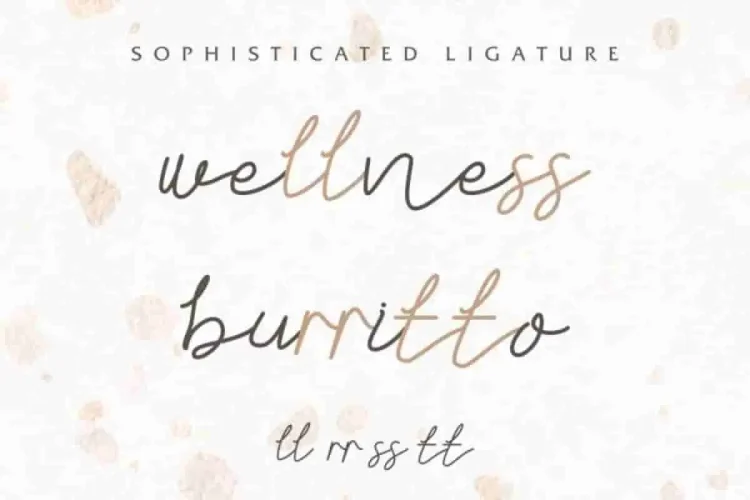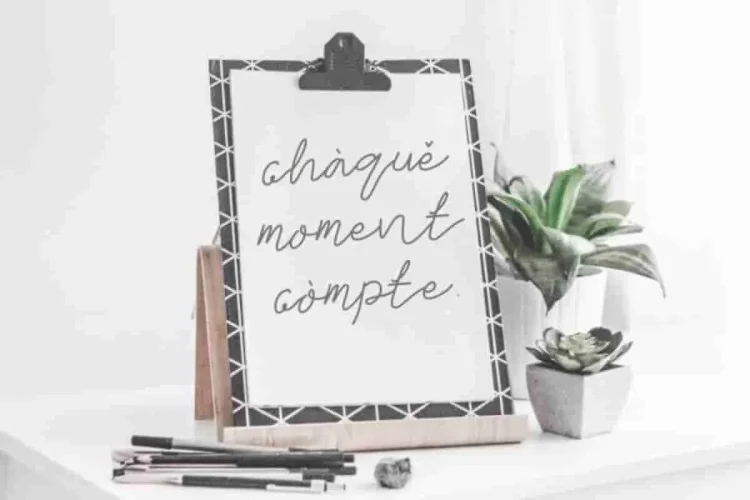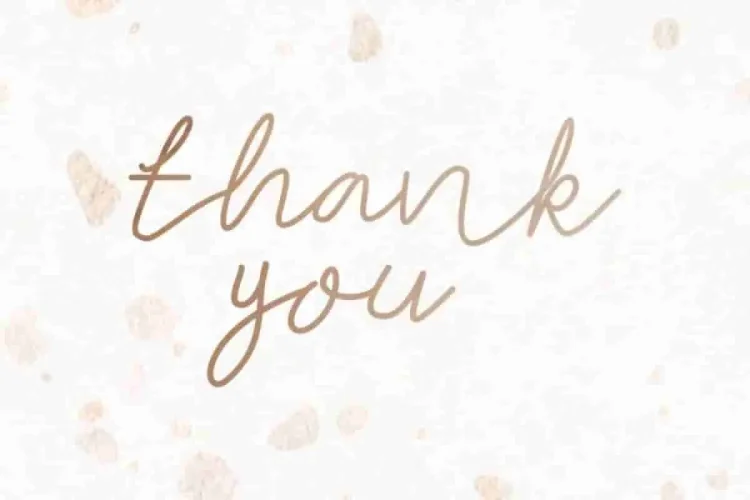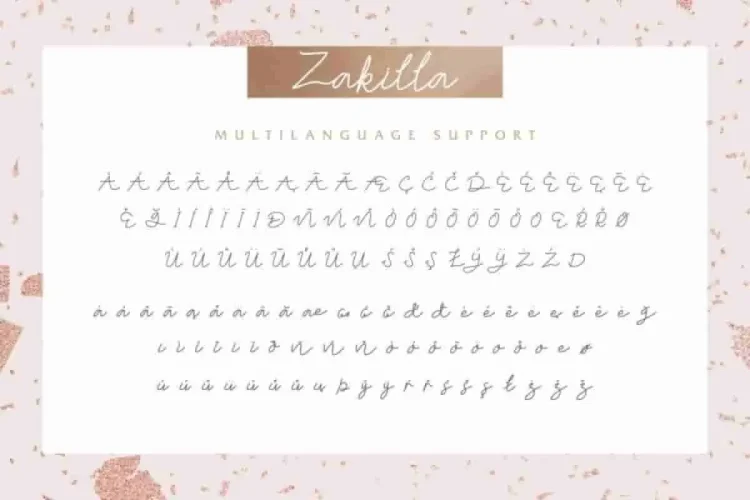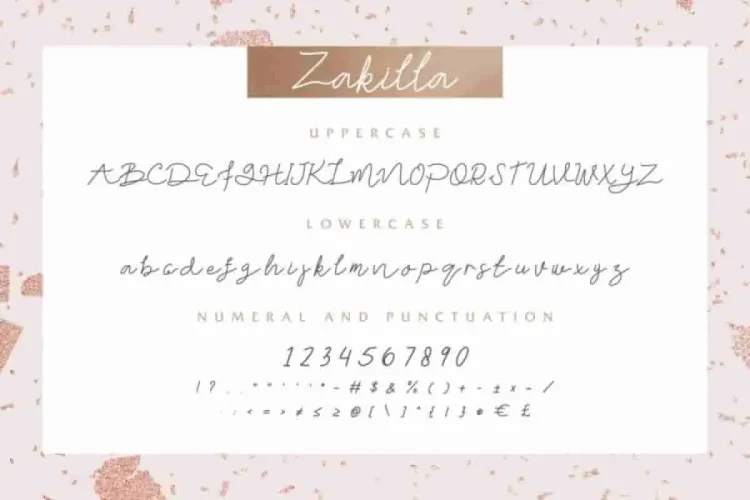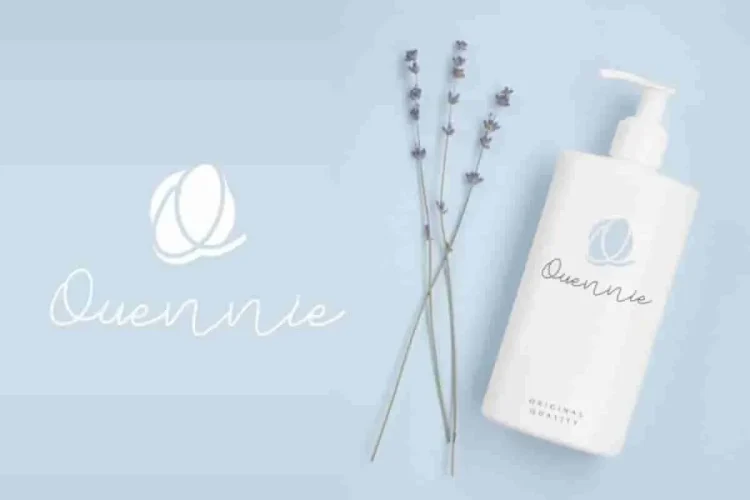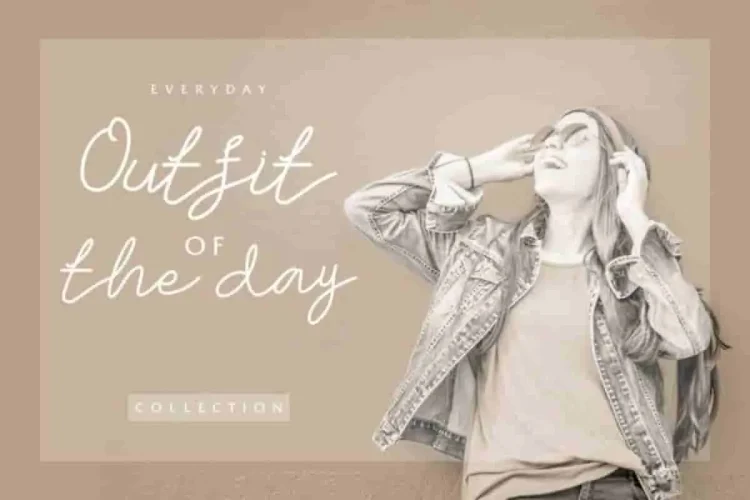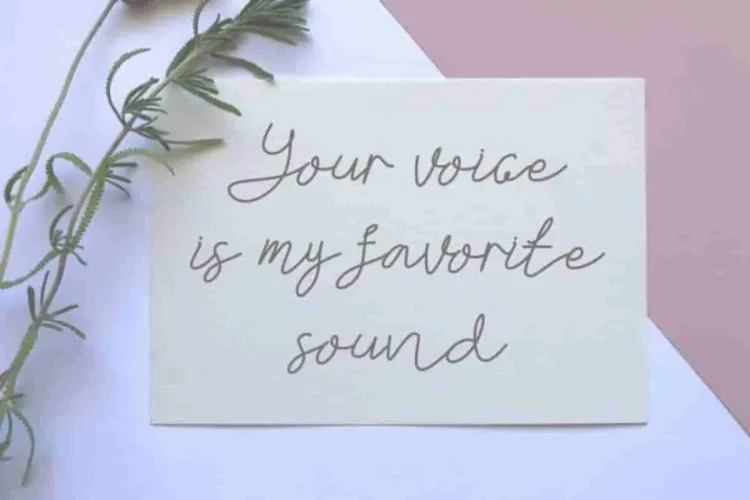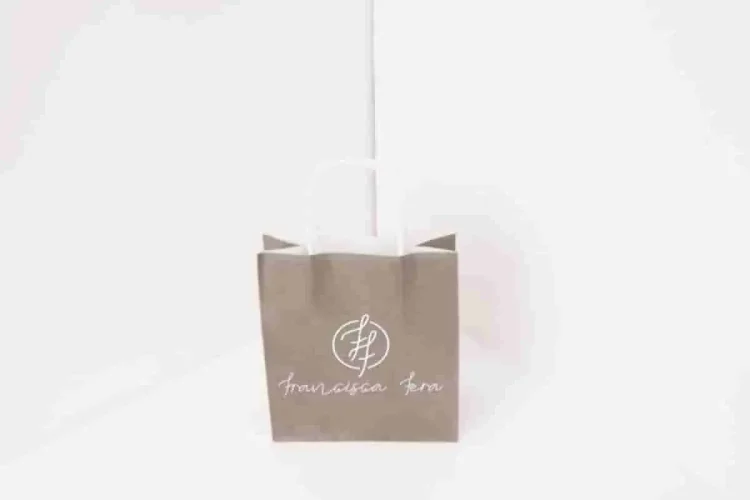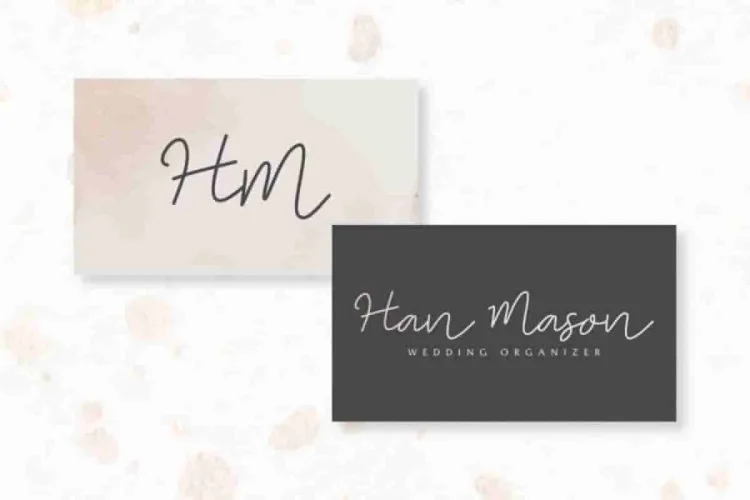
Zakilla Handwritten Style Font
Zakilla Font is a handwritten script font. Is a beautiful handwritten typeface with a blend of signature and handwritten script styles. Made in Indonesia, this font is now ready to rock the world. This font is a unique natural font with exclusive glpys where you cant find it anywhere else. It works beautifully for projects like logo design (with an extended license), signature, label, signage, flyer, headline etc.
Zakilla Font comes with complete international language support, making it suitable for global audiences.